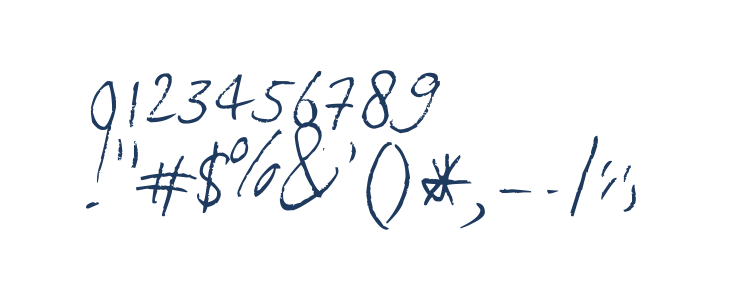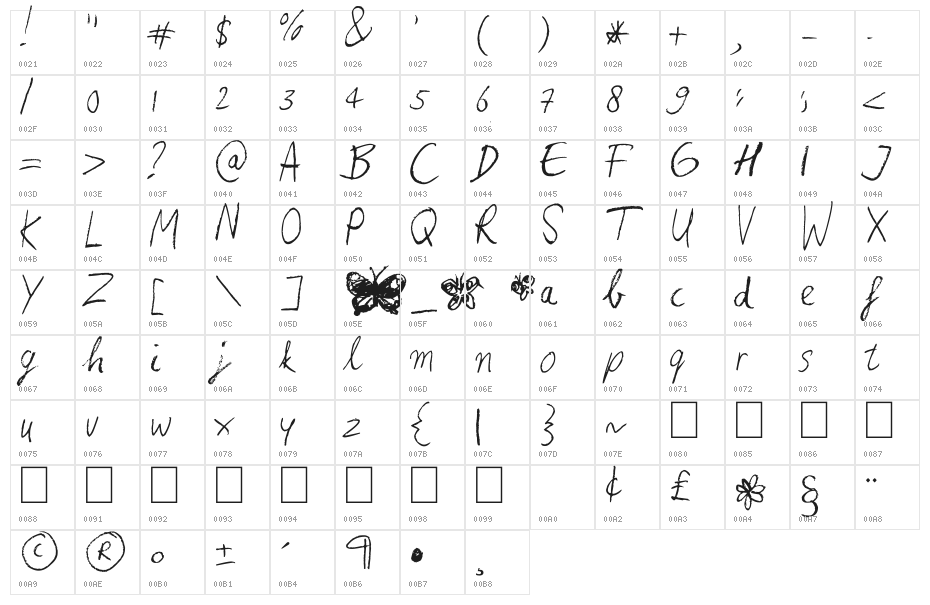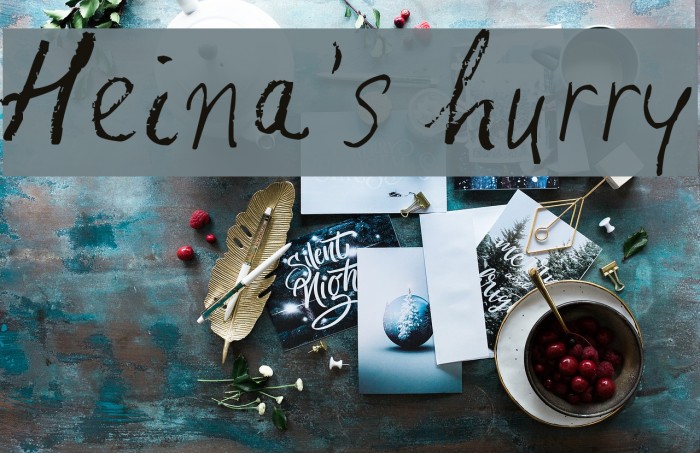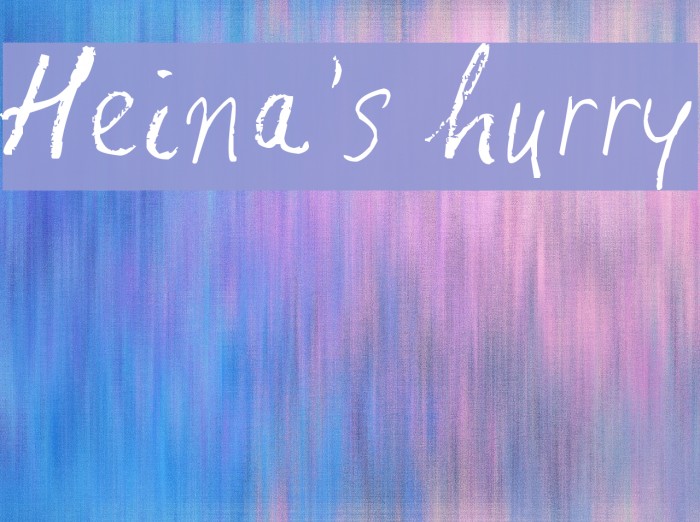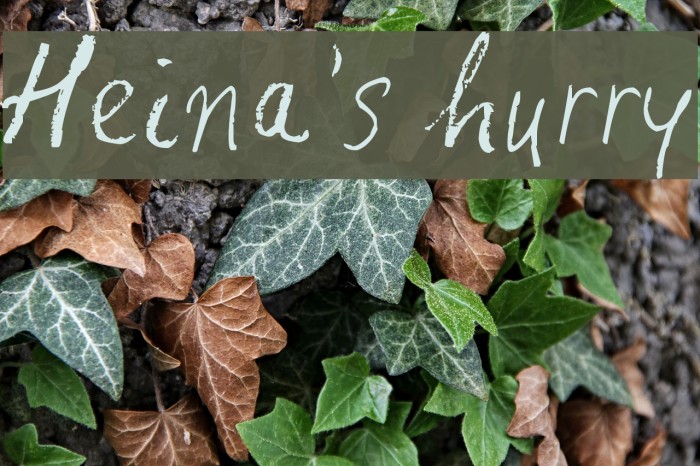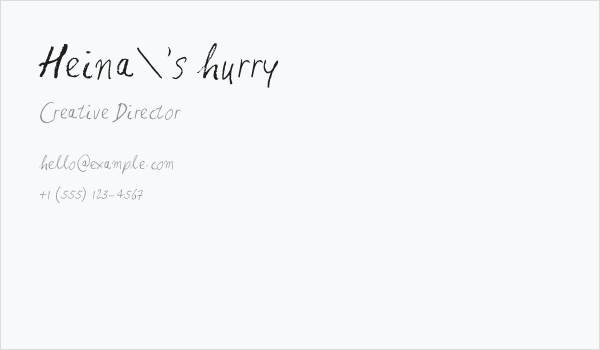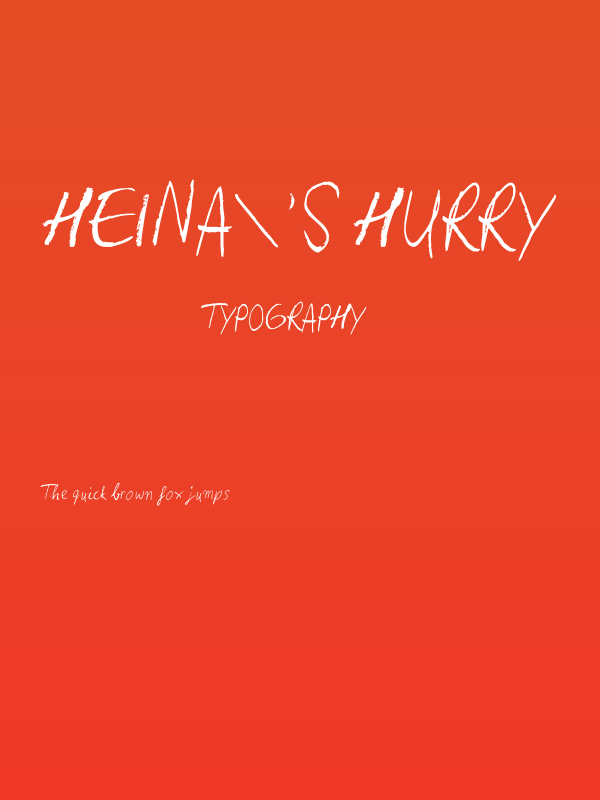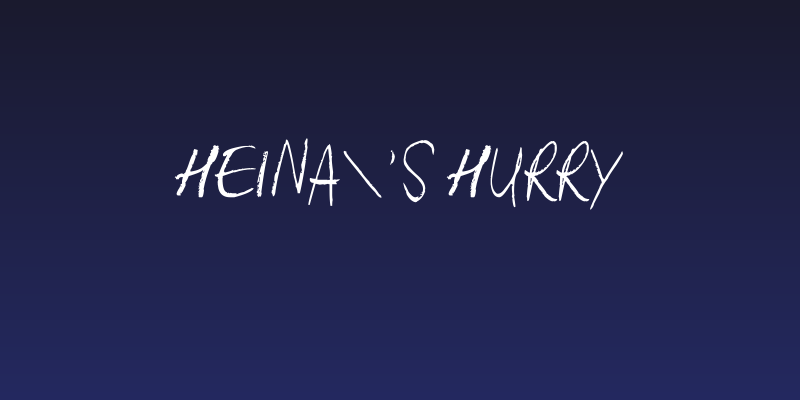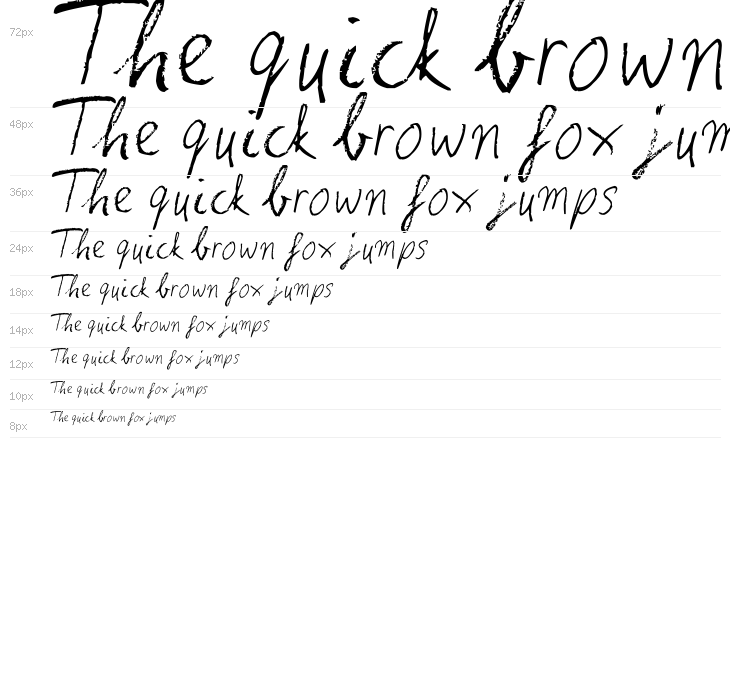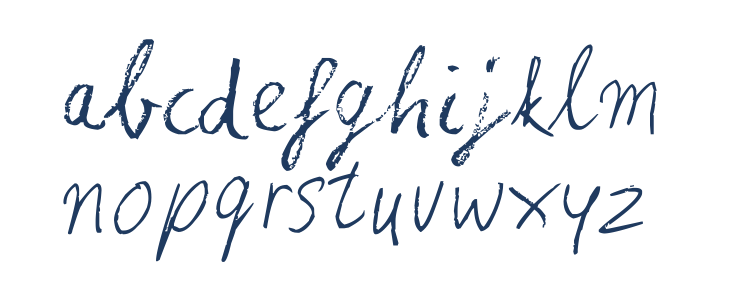
Heina's hurry Font
Heina's hurry Description
This font exudes a dynamic and expressive style, characterized by its brush-like strokes and energetic flow. The letters appear hand-drawn, with a natural, slightly irregular texture that adds to its charm. Uppercase and lowercase letters maintain a consistent style, with a playful yet sophisticated appearance. The numerals and special characters follow the same artistic approach, ensuring a cohesive look across all glyphs. This font is perfect for projects that require a personal touch, such as invitations, greeting cards, or artistic branding.
| Use Case | Headlines, Artistic projects, Branding |
| Proposed Projects | Ideal for invitations, greeting cards, artistic branding, and creative projects. |